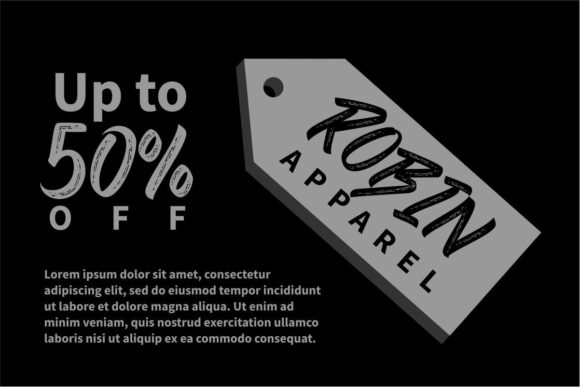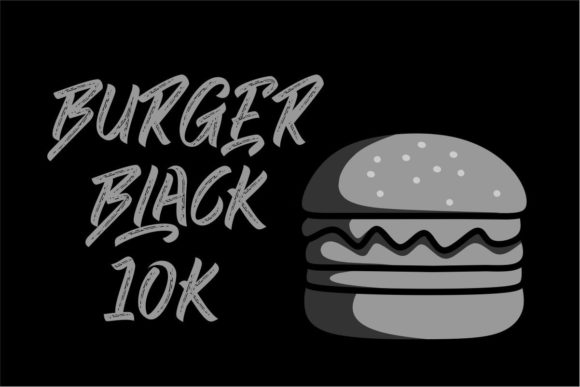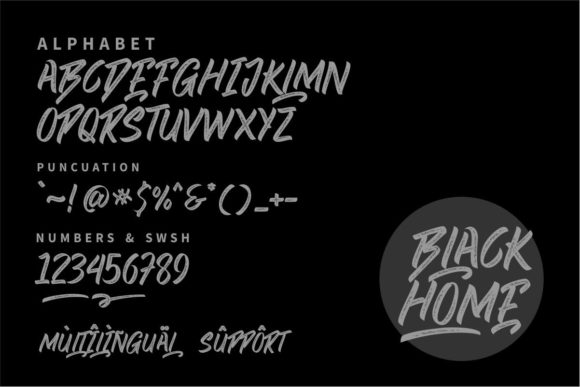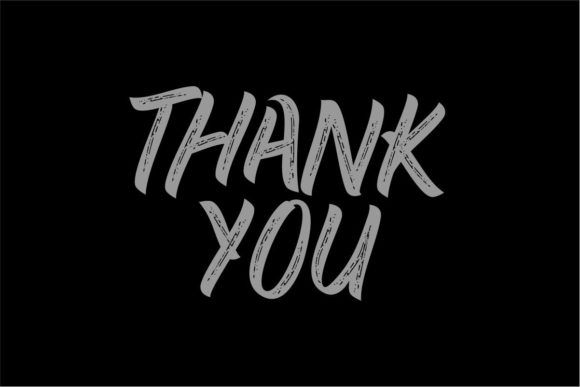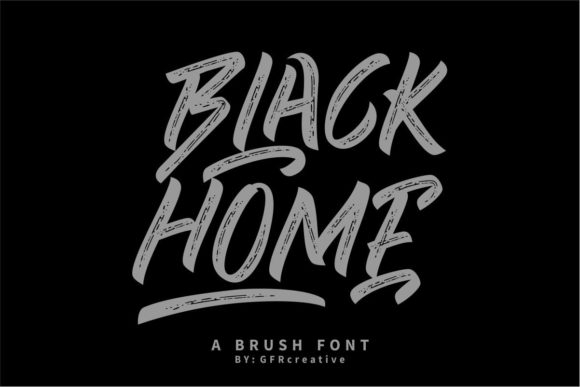
Introducing Black Home Font: The Ultimate Display Font for Modern Designs
Are you a designer or crafter looking for a font that can elevate your creative projects? Look no further than Black Home Font, a cool, brushed, and adaptable display font that’s perfect for a wide range of designs. From t-shirts and sportswear to logos, advertisements, and clothing, Black Home Font is the ideal choice for anyone who wants to add a touch of modern style to their work.
What Makes Black Home Font So Special?
Black Home Font is a unique and versatile font that’s designed to make a statement. Its brushed texture gives it a distinctive, hand-crafted look that’s perfect for designs that require a personal touch. The font is also highly adaptable, making it suitable for use in a variety of contexts, from bold and eye-catching logos to stylish and sophisticated advertisements.
Key Features of Black Home Font
- Cool and Brushed Texture: Black Home Font features a cool, brushed texture that gives it a unique and stylish look.
- Adaptable Design: The font is highly adaptable, making it suitable for use in a wide range of designs, from logos and advertisements to t-shirts and sportswear.
- Display Font: Black Home Font is a display font, making it perfect for use in headlines, titles, and other prominent text elements.
- Easy to Read: Despite its bold and stylish design, Black Home Font is easy to read, making it perfect for use in designs where clarity is key.
Uses for Black Home Font
Black Home Font is a versatile font that can be used in a wide range of designs, including:
- T-Shirts and Sportswear: Black Home Font is perfect for use in t-shirt and sportswear designs, adding a touch of modern style to your apparel.
- Logos and Branding: The font’s bold and stylish design makes it perfect for use in logos and branding materials.
- Advertisements: Black Home Font is ideal for use in advertisements, adding a touch of sophistication and style to your marketing materials.
- Clothing and Fashion: The font’s adaptability and stylish design make it perfect for use in clothing and fashion designs.
Why Choose Black Home Font?
There are many reasons why Black Home Font is the perfect choice for designers and crafters. Here are just a few:
- Unique and Stylish Design: Black Home Font features a unique and stylish design that’s sure to make your designs stand out.
- Highly Adaptable: The font’s adaptability makes it suitable for use in a wide range of designs and contexts.
- Easy to Use: Black Home Font is easy to use and can be easily integrated into your design workflow.
- Perfect for Modern Designs: The font’s modern style makes it perfect for use in modern designs, from logos and advertisements to t-shirts and sportswear.
Black Home Font is a cool, brushed, and adaptable display font that’s perfect for designers and crafters who want to add a touch of modern style to their creative projects. With its unique and stylish design, adaptability, and ease of use, Black Home Font is the ideal choice for a wide range of designs, from logos and advertisements to t-shirts and sportswear. So why wait? Download Black Home Font today and start creating stunning designs that are sure to impress!